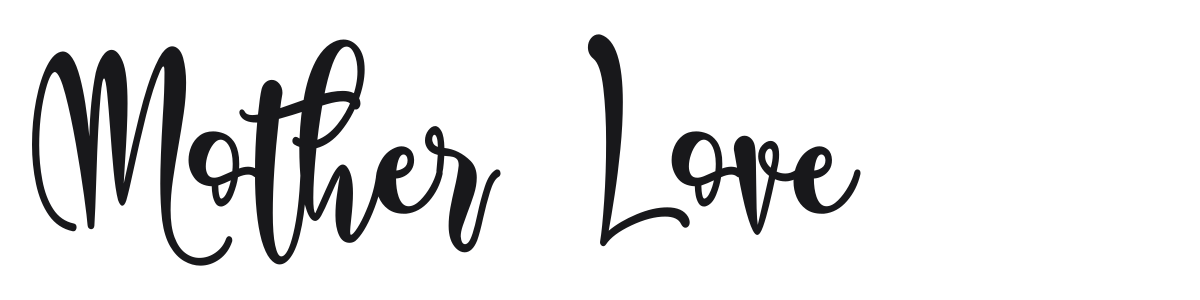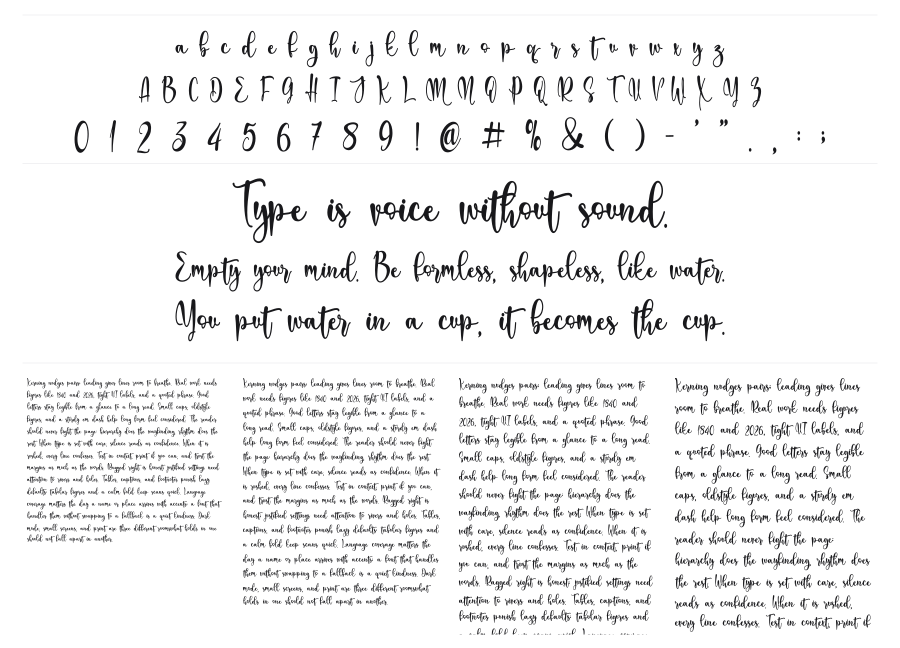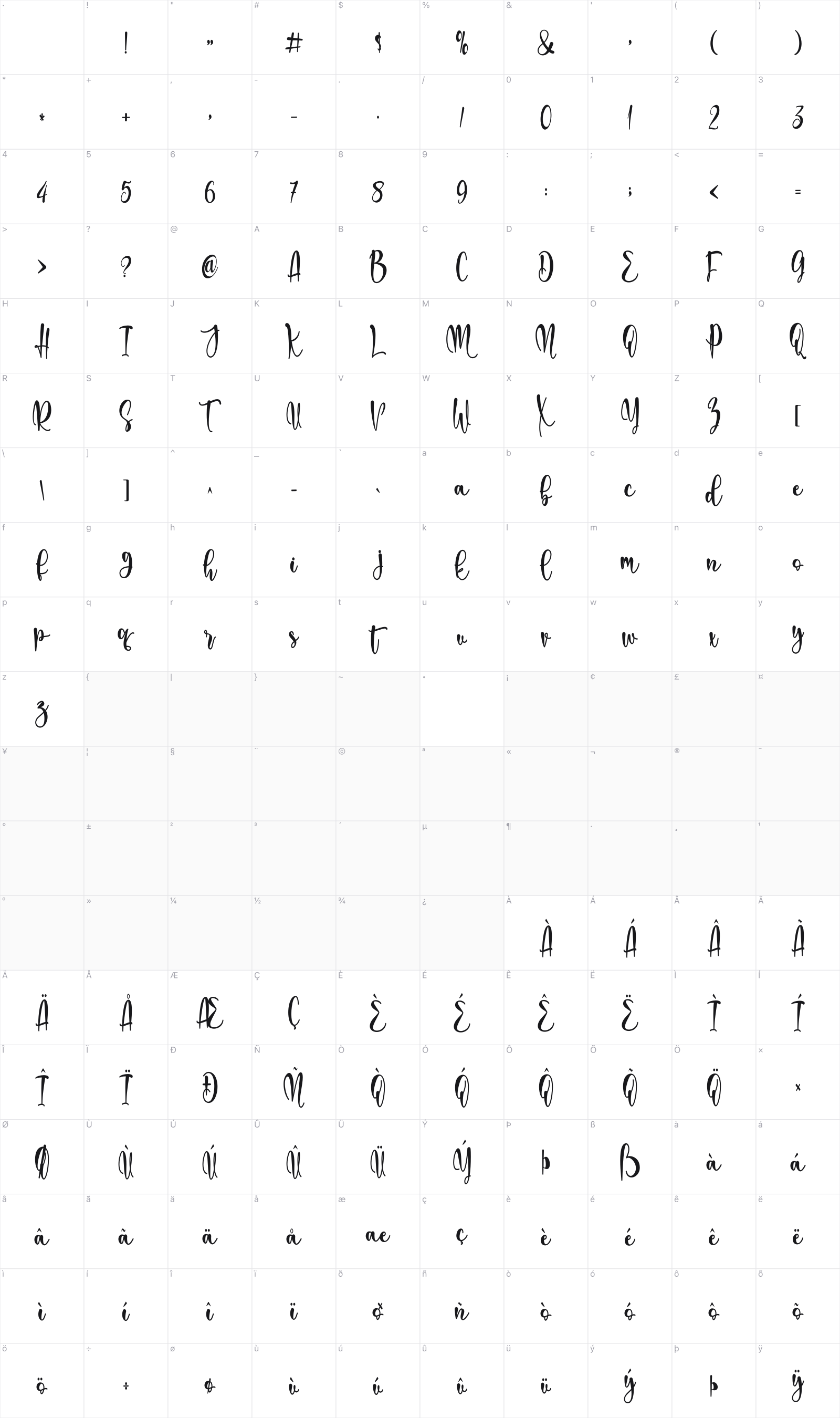
Mother Love
Mother Love is a casual connected script with flowing strokes, bouncy rhythm, and a warm calligraphic quality. The generous loops and swashing ascenders give it a lively handwritten feel without losing legibility at headline sizes. It leans naturally toward romantic and lifestyle contexts: wedding stationery, product labels, social media graphics.